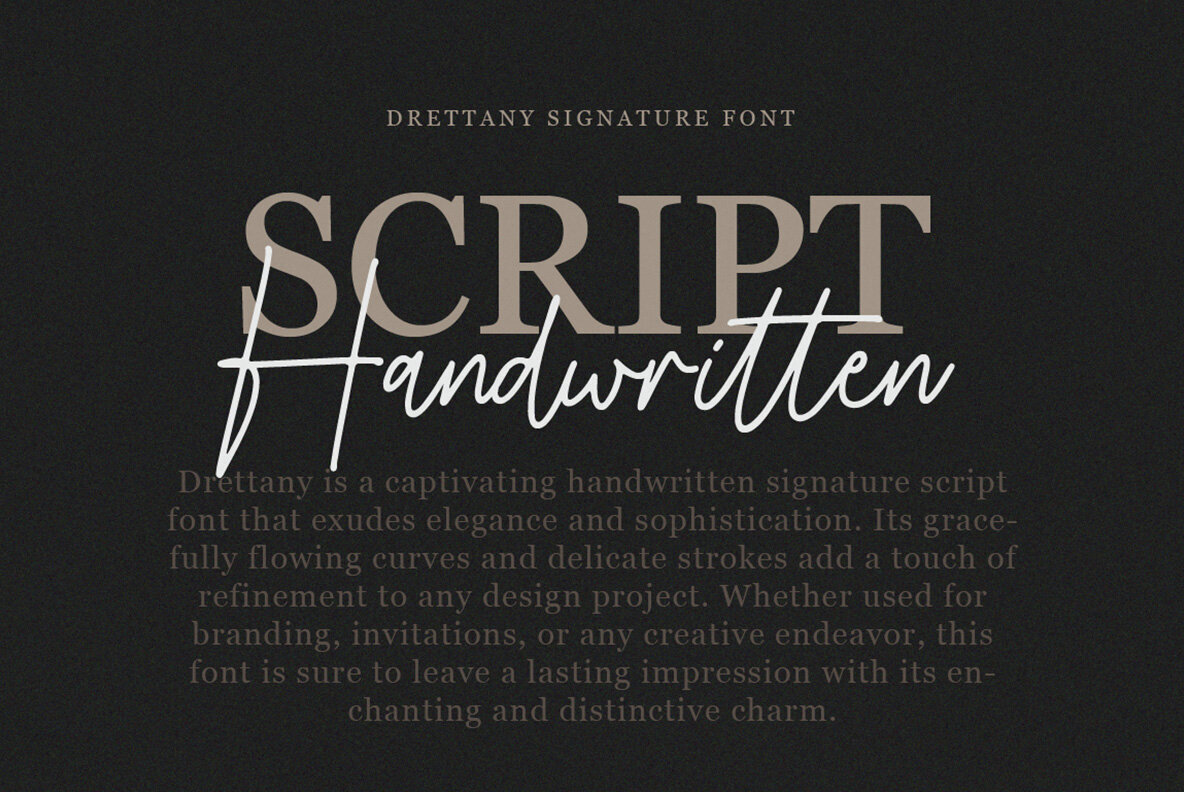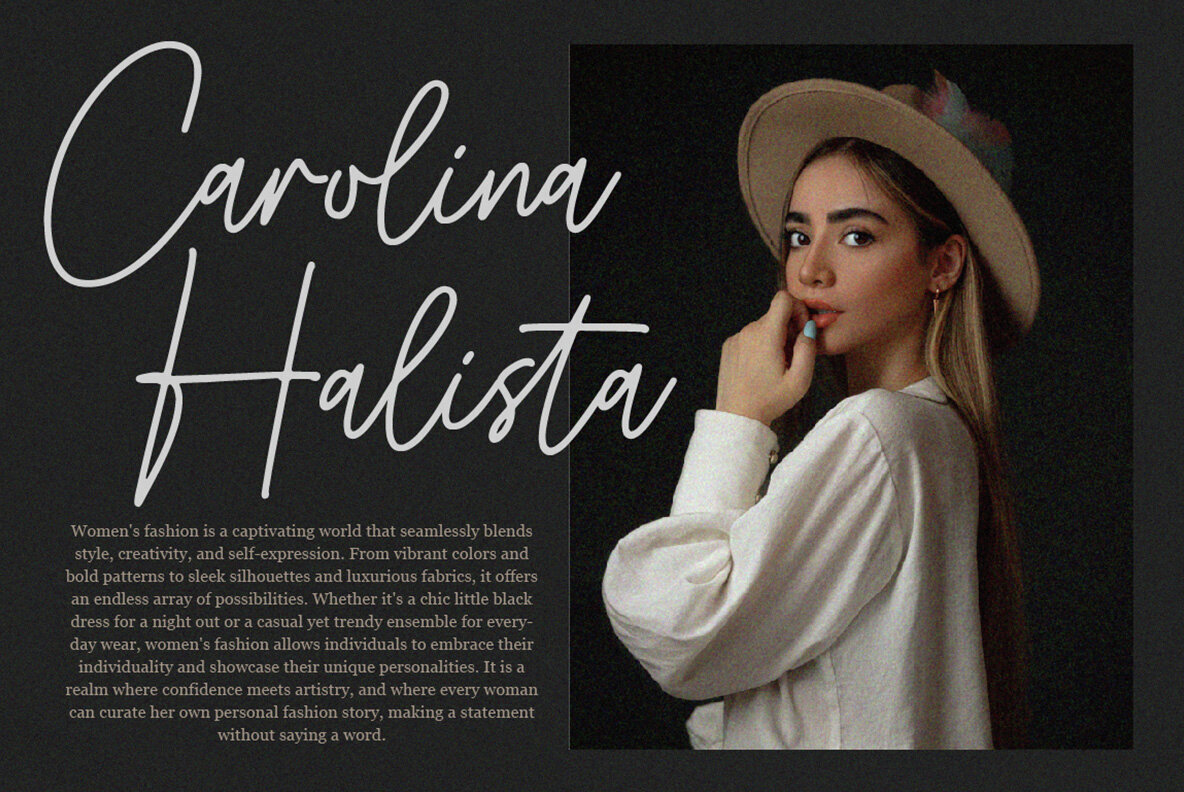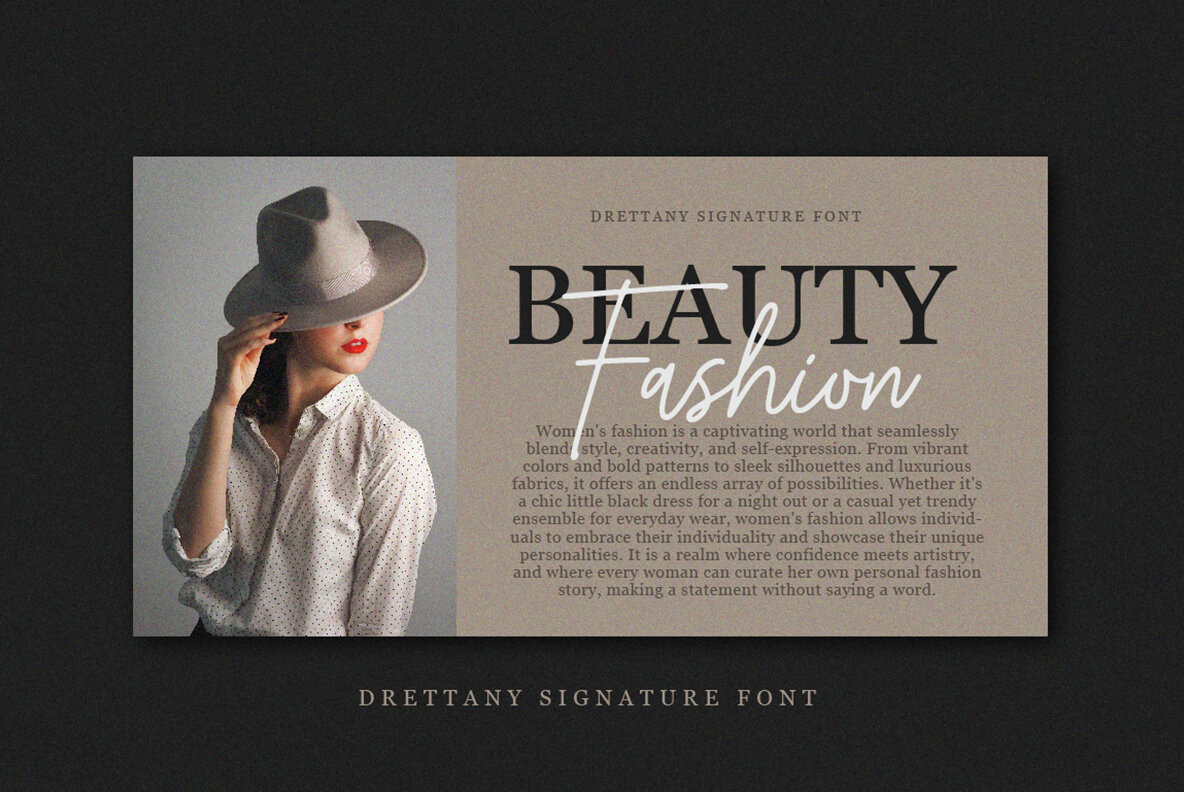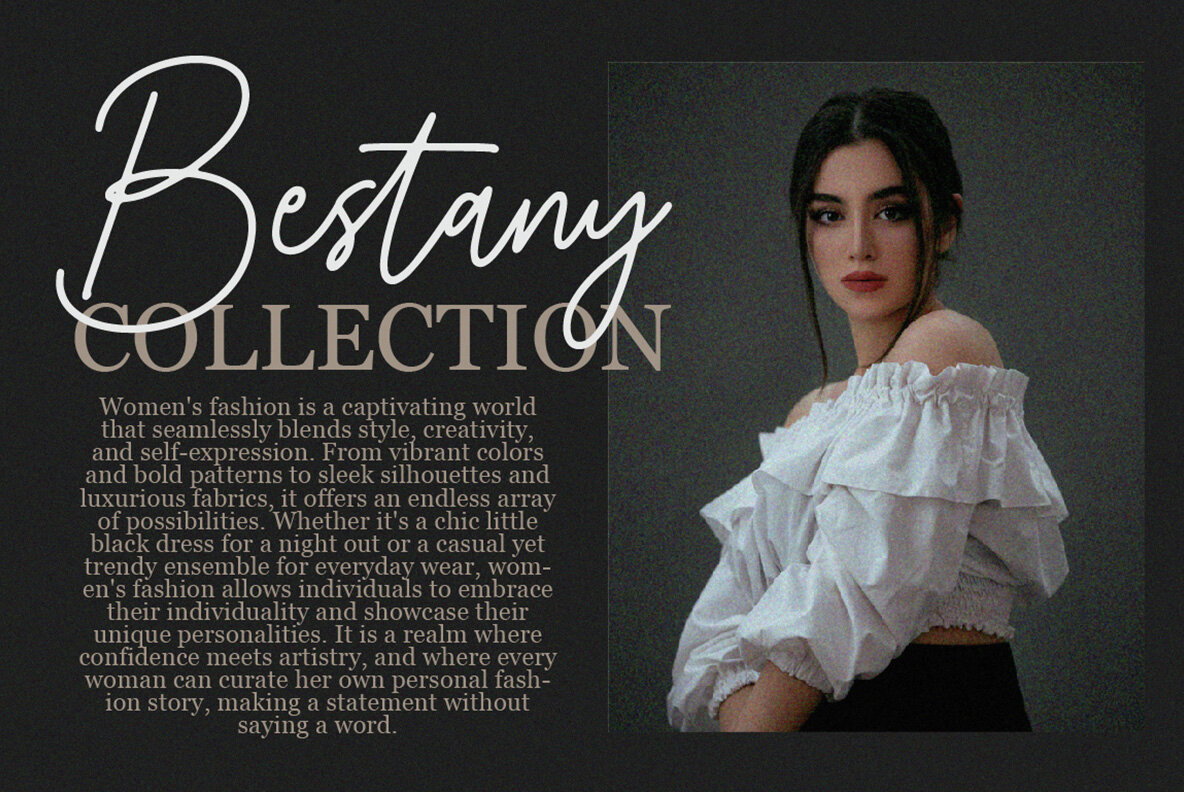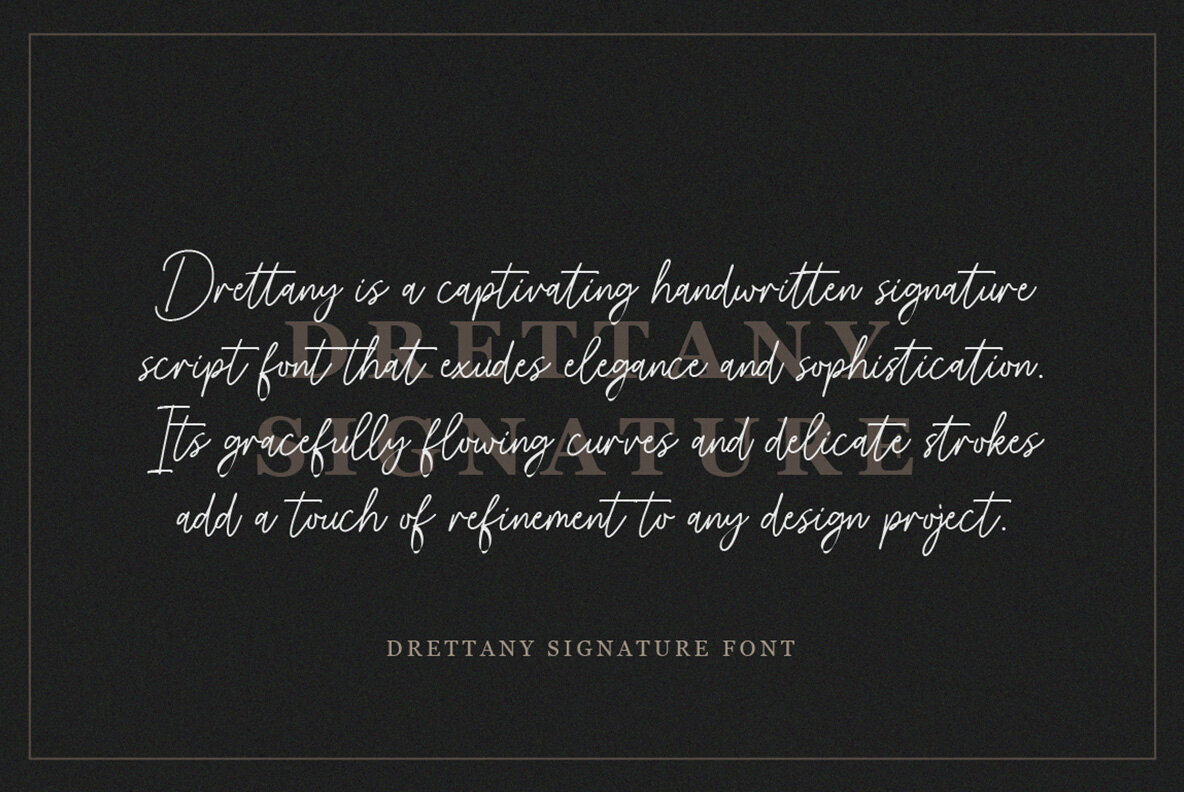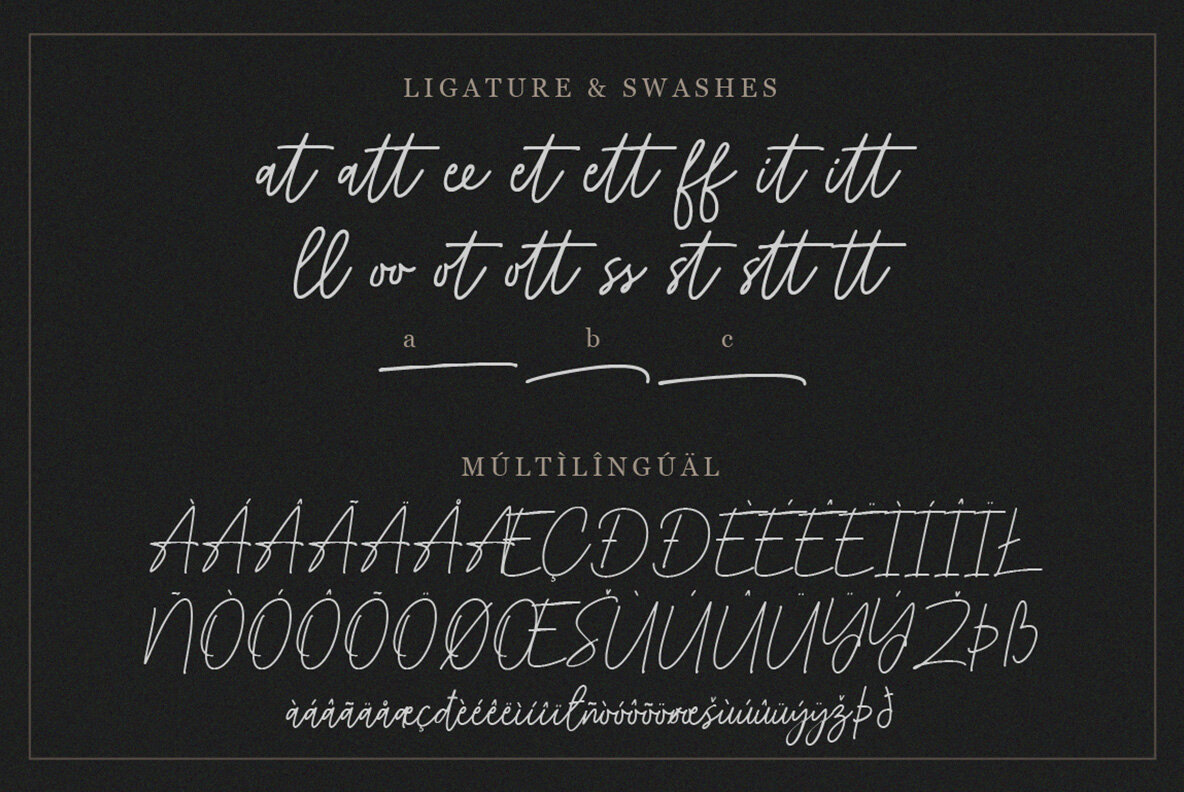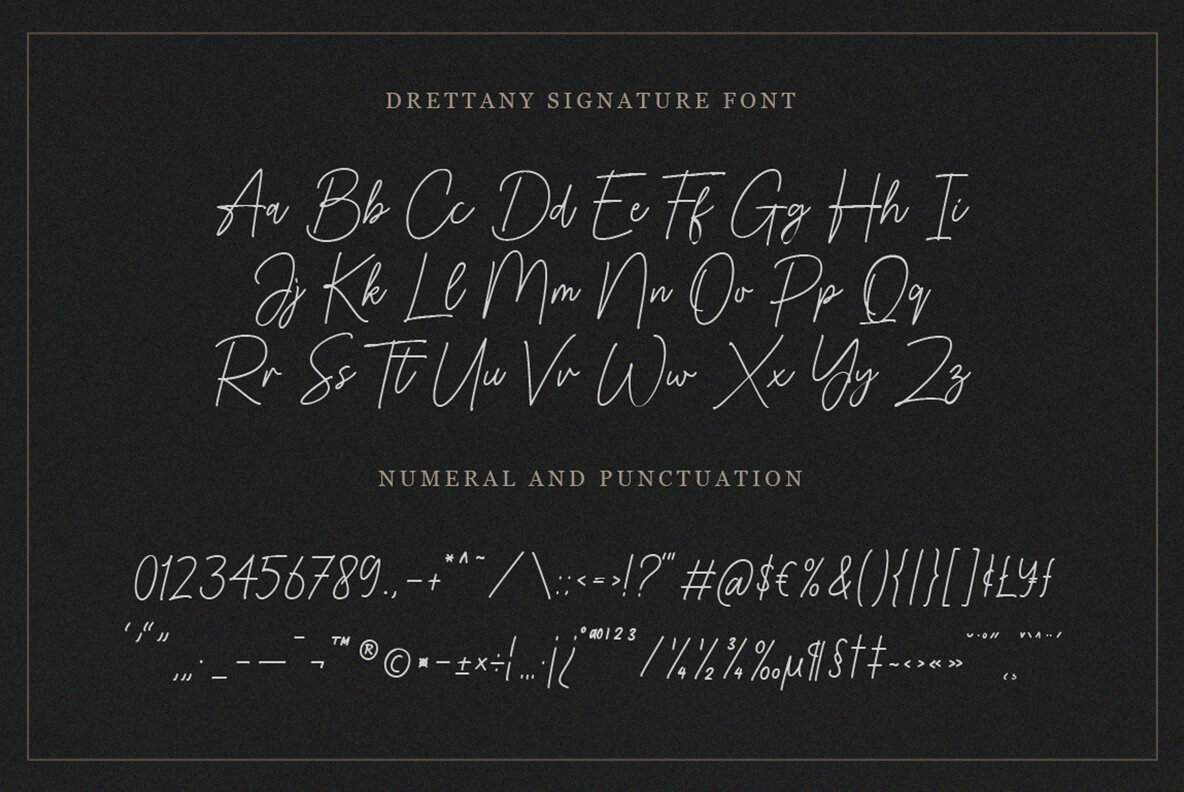
Drettany Signature Font
Drettany Signature
This typeface is a modern script with a handwritten and calligraphic touch, reflecting elegance and personal flair. Each character is designed with fluid, sweeping strokes that suggest fluidity and grace. Ideal for design applications needing a touch of sophistication and a signature-like, custom-made aesthetic, this font carries a contemporary yet timeless appeal suitable for branding, invitations, and editorial use.